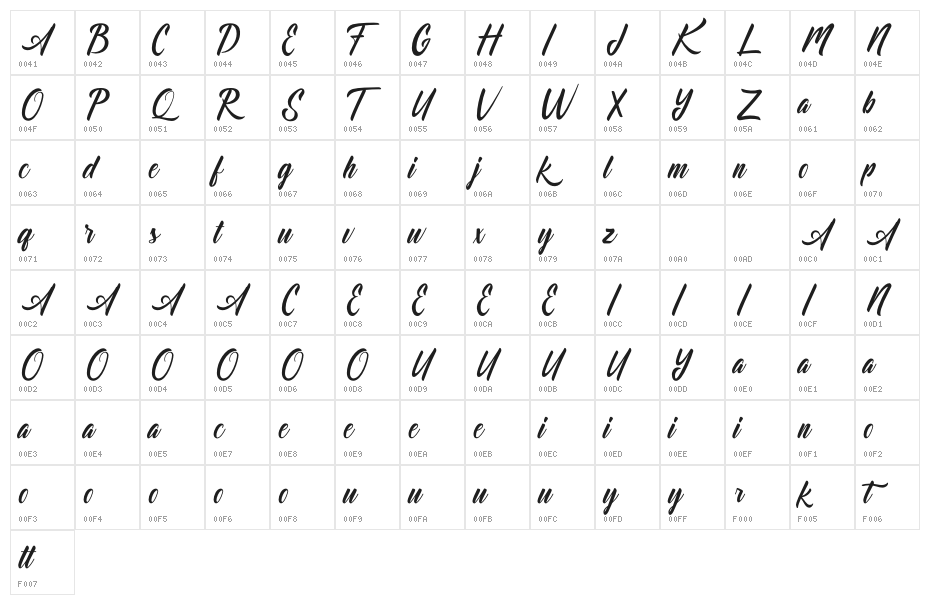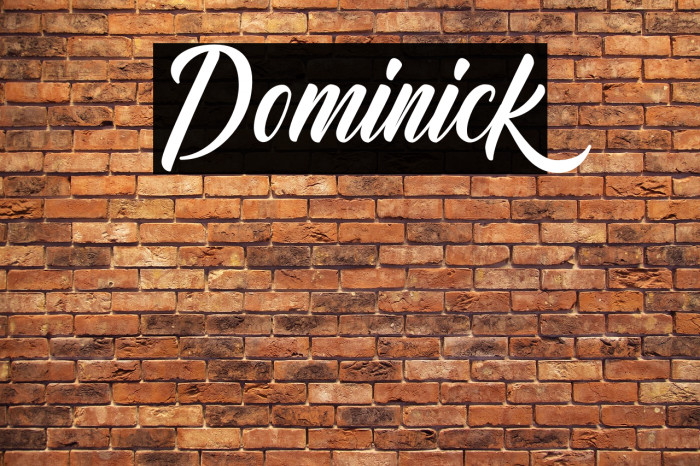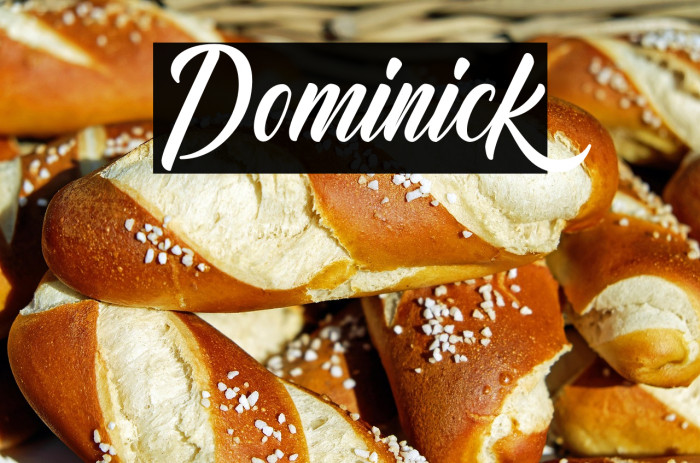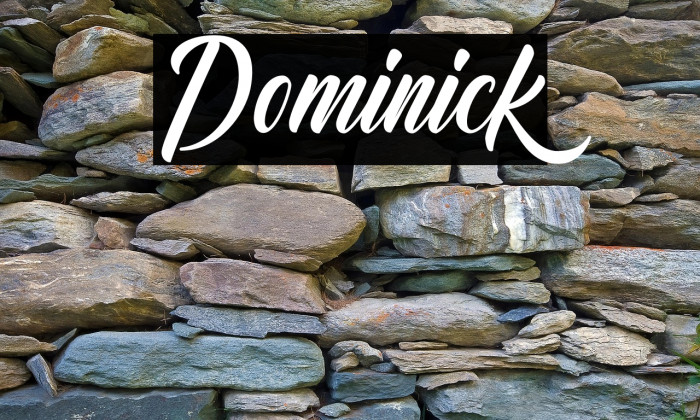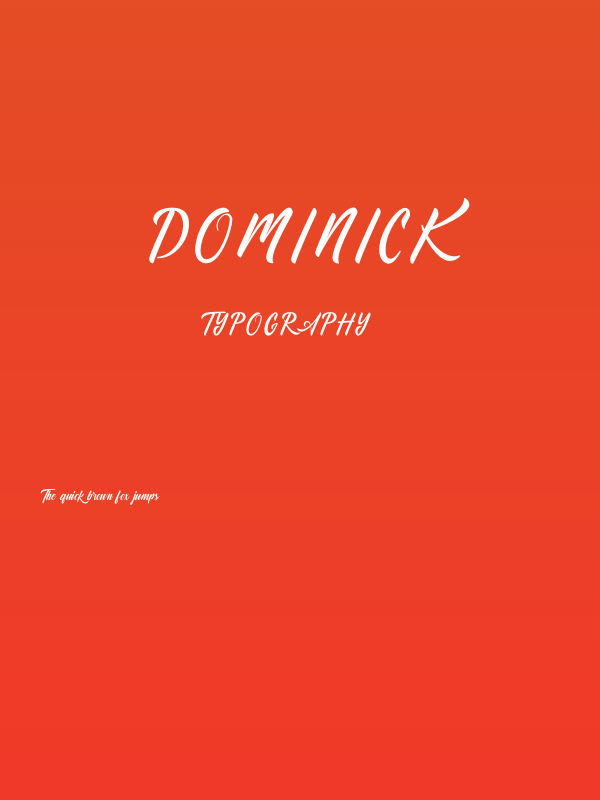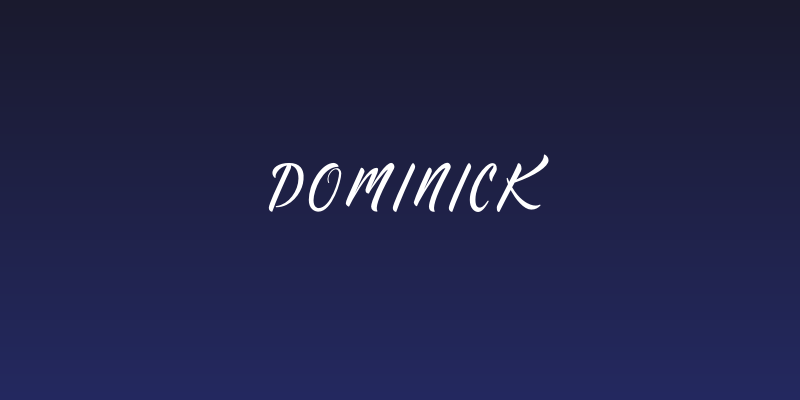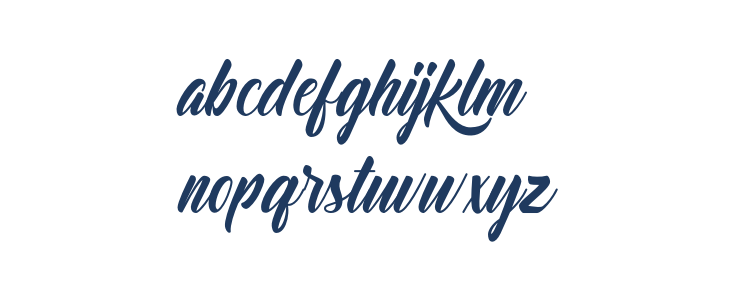
Dominick Font
Dominick Description
This font exhibits a dynamic and flowing script style, characterized by its elegant and cursive letterforms. The uppercase letters are slightly slanted with smooth, sweeping curves, giving a sense of motion and grace. The lowercase letters maintain a consistent flow, with some characters featuring loops and flourishes that enhance its decorative appeal. The overall design is cohesive, with a harmonious balance between thick and thin strokes, adding to its sophisticated appearance. This font is ideal for projects that require a touch of elegance and personality, making it suitable for invitations, branding, and creative designs.
| Overall Style | Elegant |
| Use Case | Logos, Invitations, Decorative text |
| Proposed Projects | Ideal for wedding invitations, branding, greeting cards, and elegant signage. |